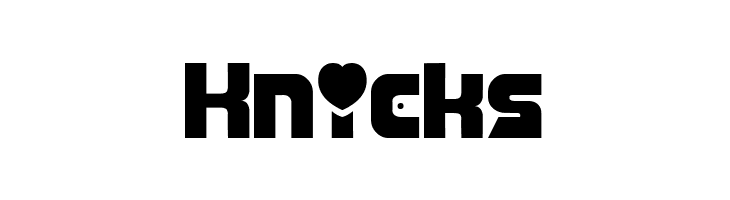
Manero Iconos Font
- Font: Manero Iconos
( Fonts by a kmzero font foundry - www.zetafonts.com. Personal-use only. For commercial use please contact owner. ) A modern, bold font with rounded edges and a playful style. Descarcă 7528 Descărcări@WebFont